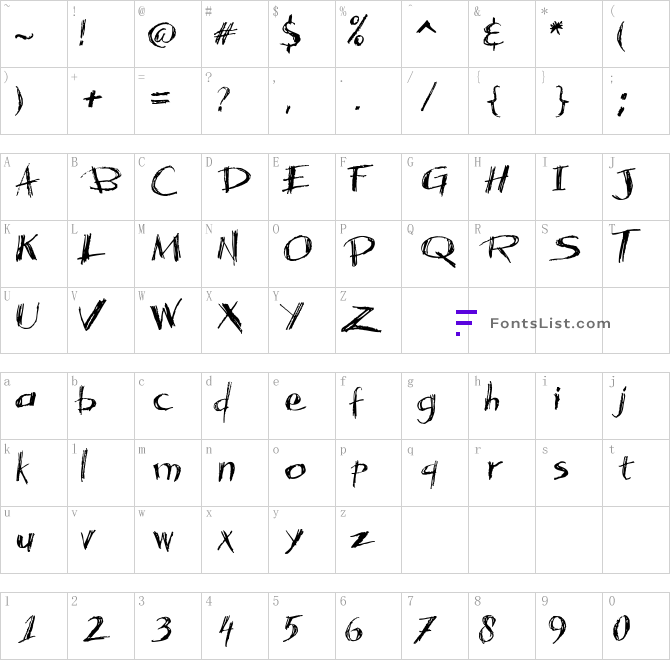
- Font Name:Acacia 23
Acacia-23.ttf is a very beautiful artistic font, Acacia-23.ttf is widely used in the design and printing of various books and pictures,Acacia-23.ttf has a strong visual impact,Acacia-23.ttf is a commonly used font in newspapers, magazines and books, and is used in posters, e-commerce Poster design, store design, logo design, font design and other fields.Acacia-23.